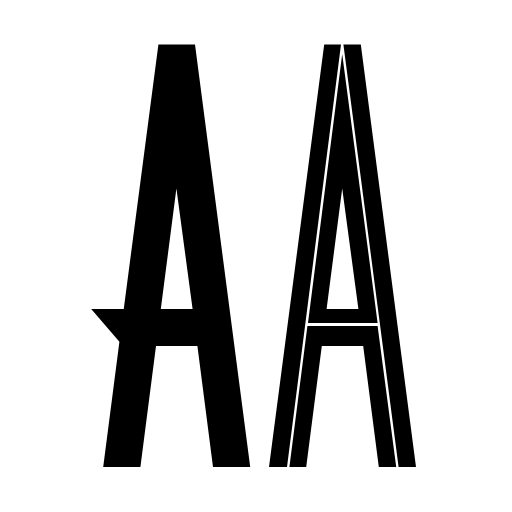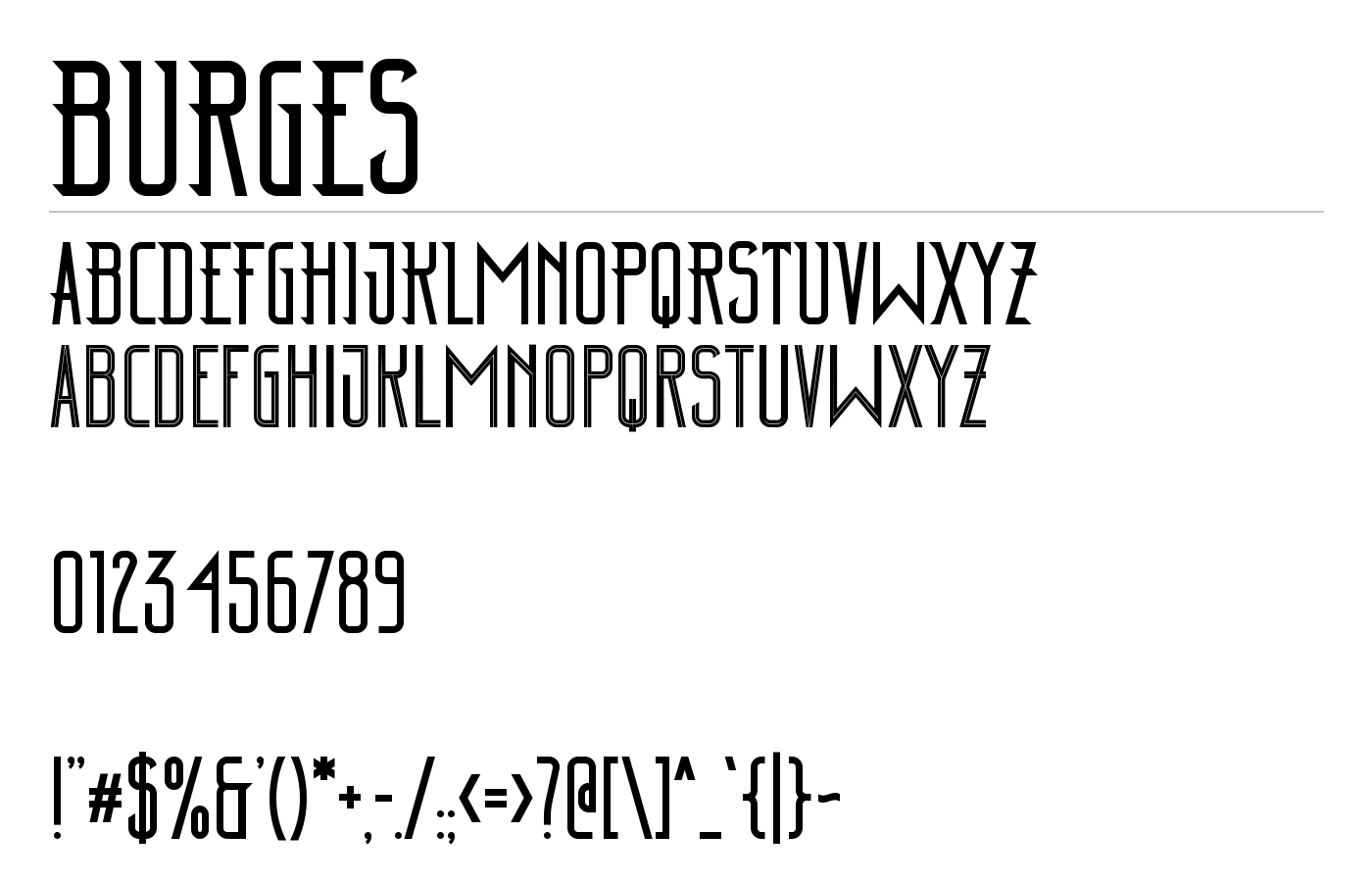
BURGES is a narrow, geometric sans serif font with a modern, slightly angular design that gives it a distinctive and futuristic feel. Its tall, condensed letterforms and sharp edges create a strong presence perfect for bold headlines, branding, and display use where a sleek, contemporary style is desired. This font works well in projects that aim to convey innovation, technology, or cutting-edge sophistication.
BURGES Font
About BURGES Font
| Font family | BURGES Font |
| Designer | Sahirul Puguh |